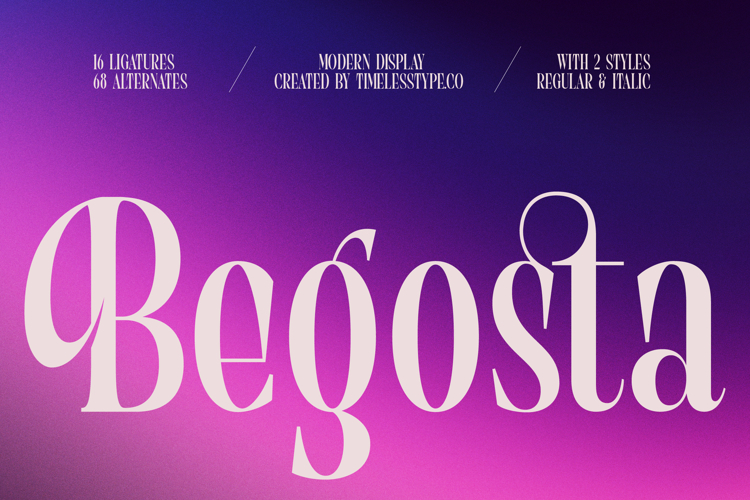
Begosta - Modern Display Font
Elevate your design projects with unparalleled sophistication using Begosta - Modern Display Font. This exquisite typeface masterfully blends timeless elegance with a contemporary edge, featuring striking high-contrast strokes and gracefully flowing curves that command attention. Designed for designers who seek to convey luxury and refinement, Begosta - Modern Display Font brings an inherently chic and polished aesthetic to any visual communication.
Unlock a world of creative possibilities with the exceptional versatility of Begosta - Modern Display Font. Boasting an impressive collection of 16 ligatures and 68 alternates, alongside two distinct styles – Regular and Italic – this font offers profound customization. These comprehensive features empower designers to craft truly unique and expressive typographic compositions, ensuring every design is both distinctive and impactful.